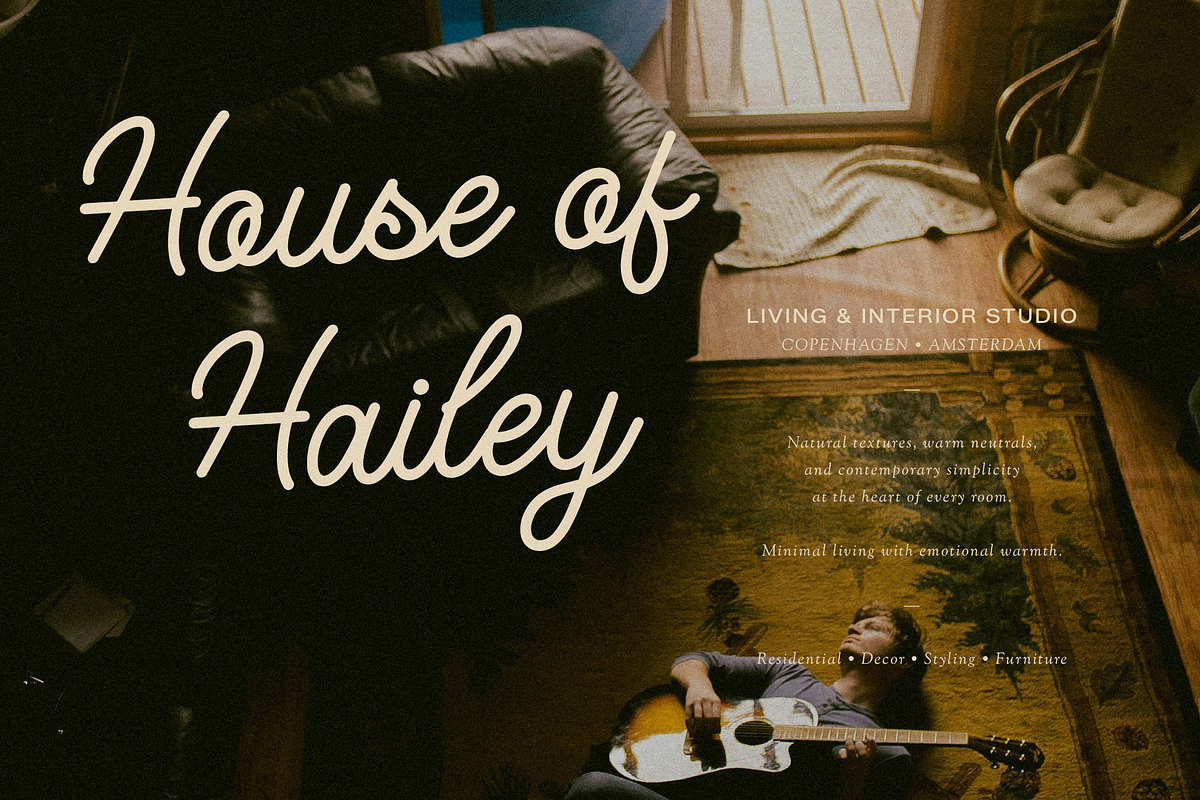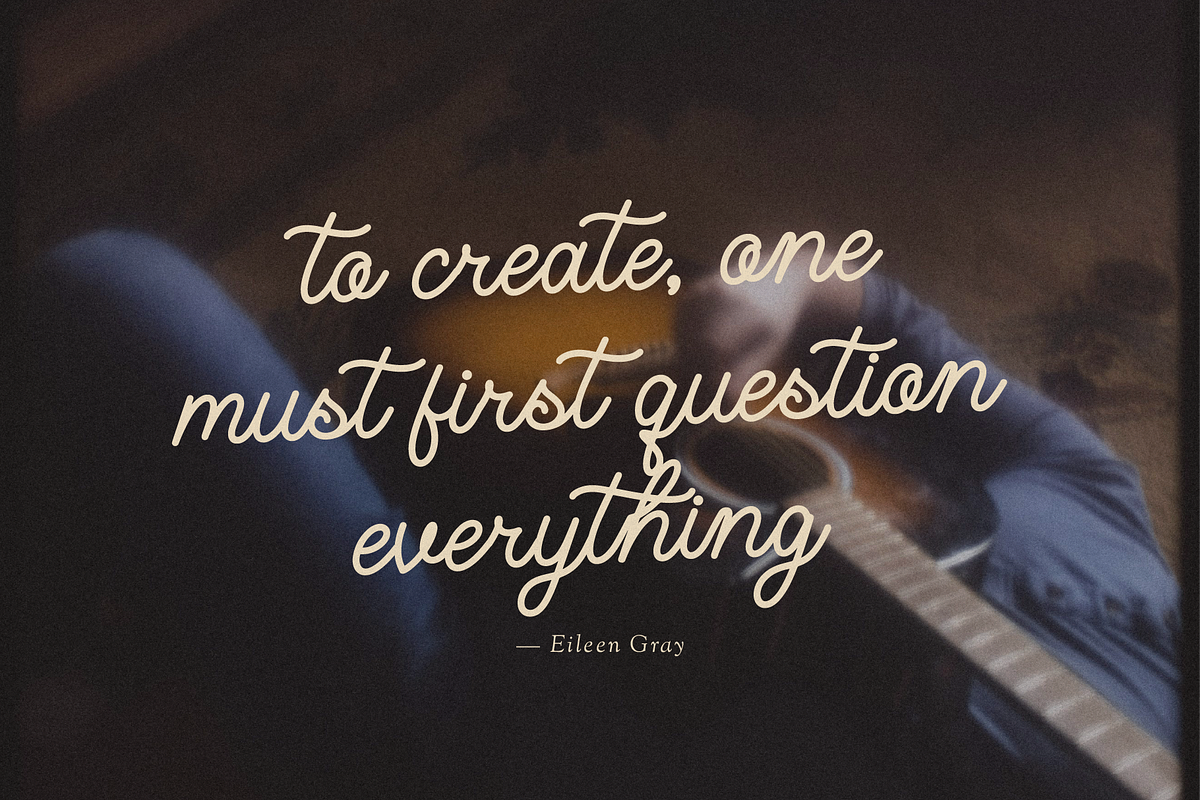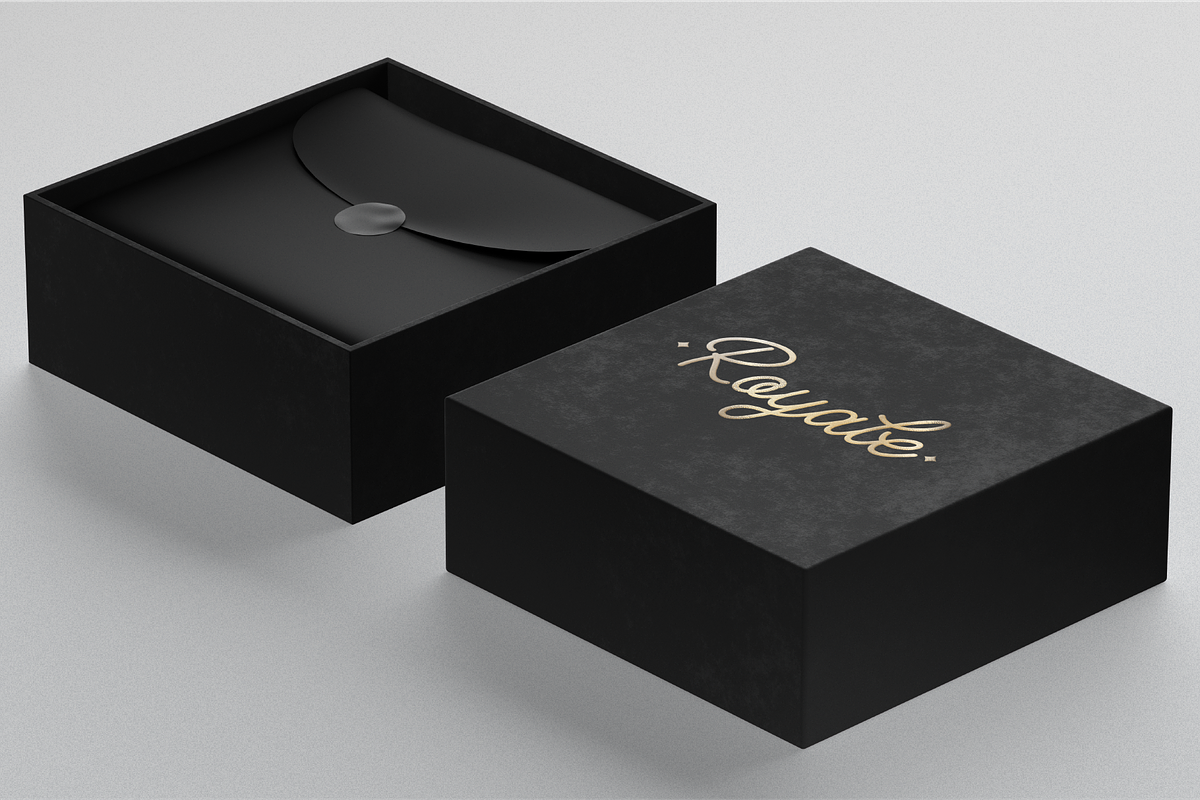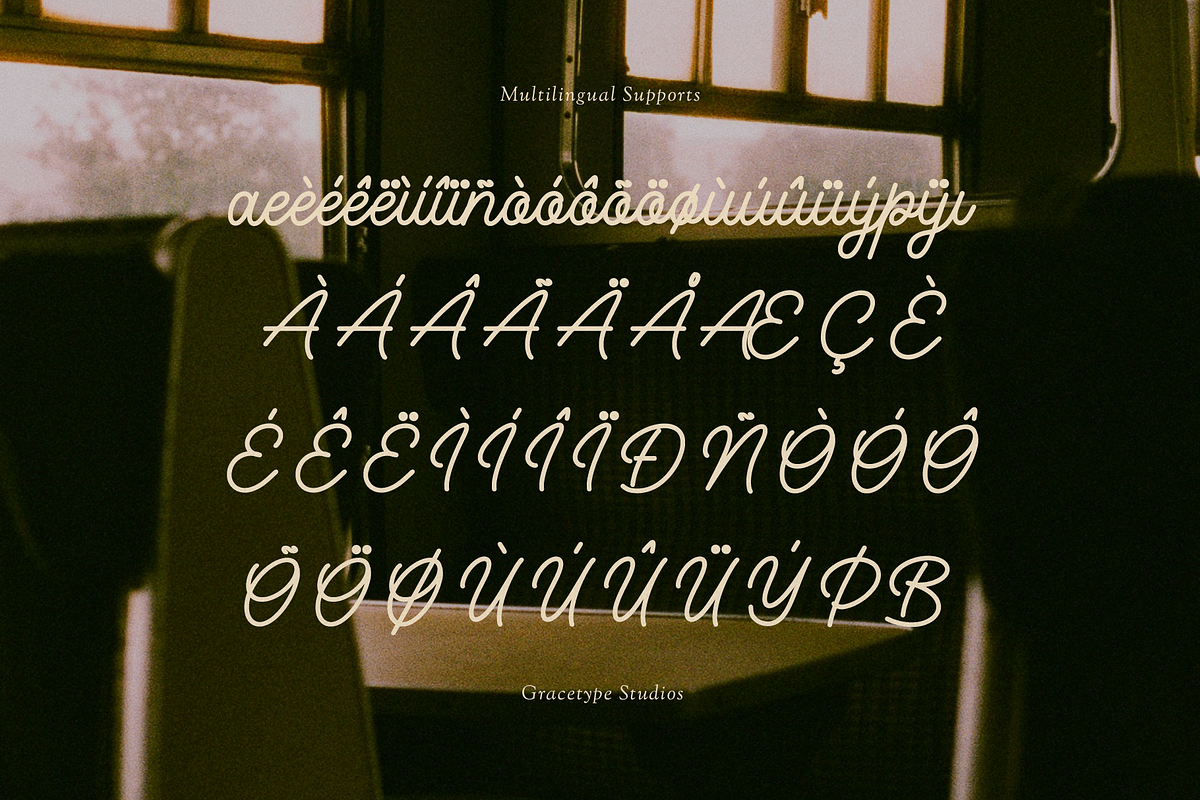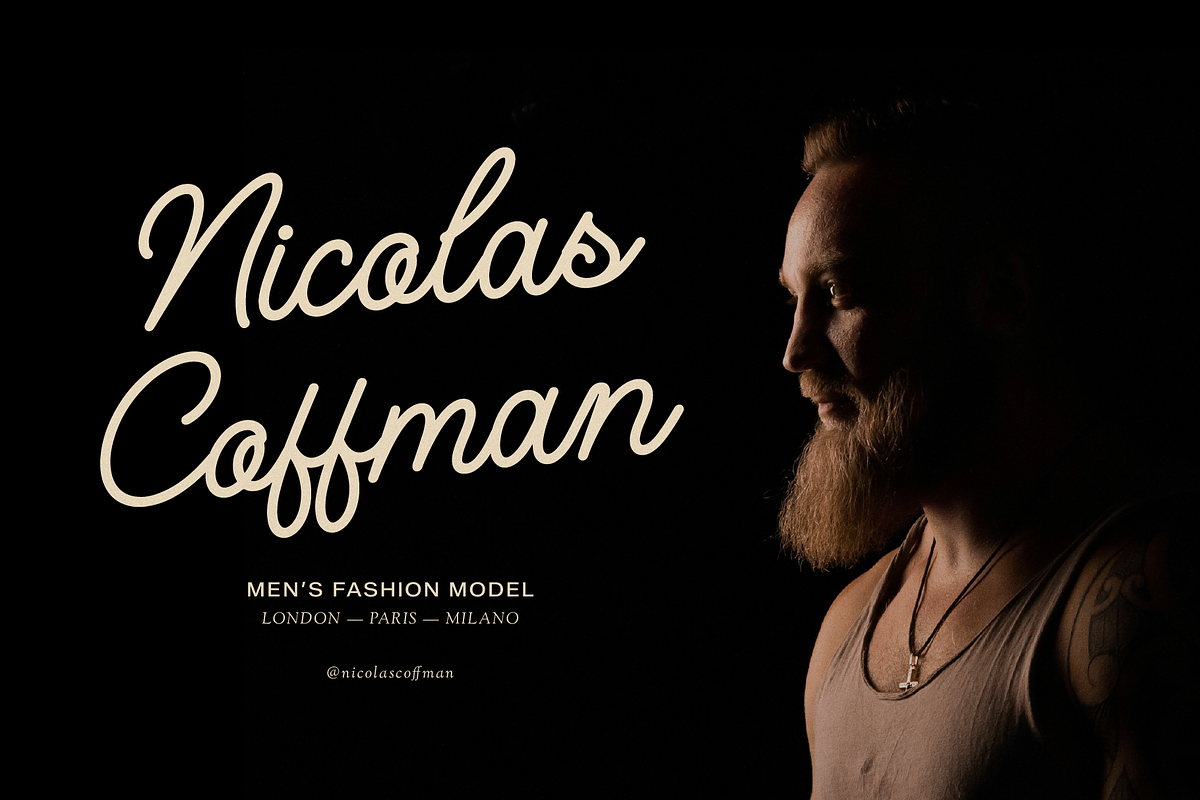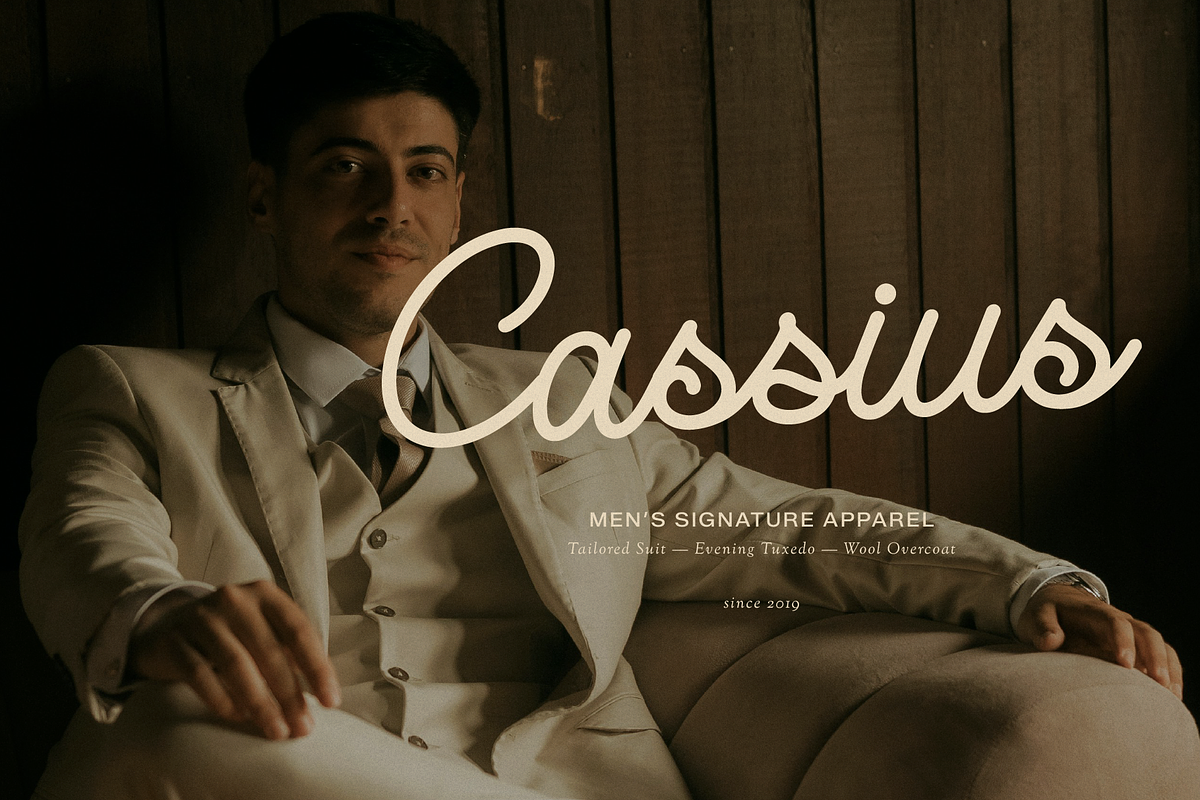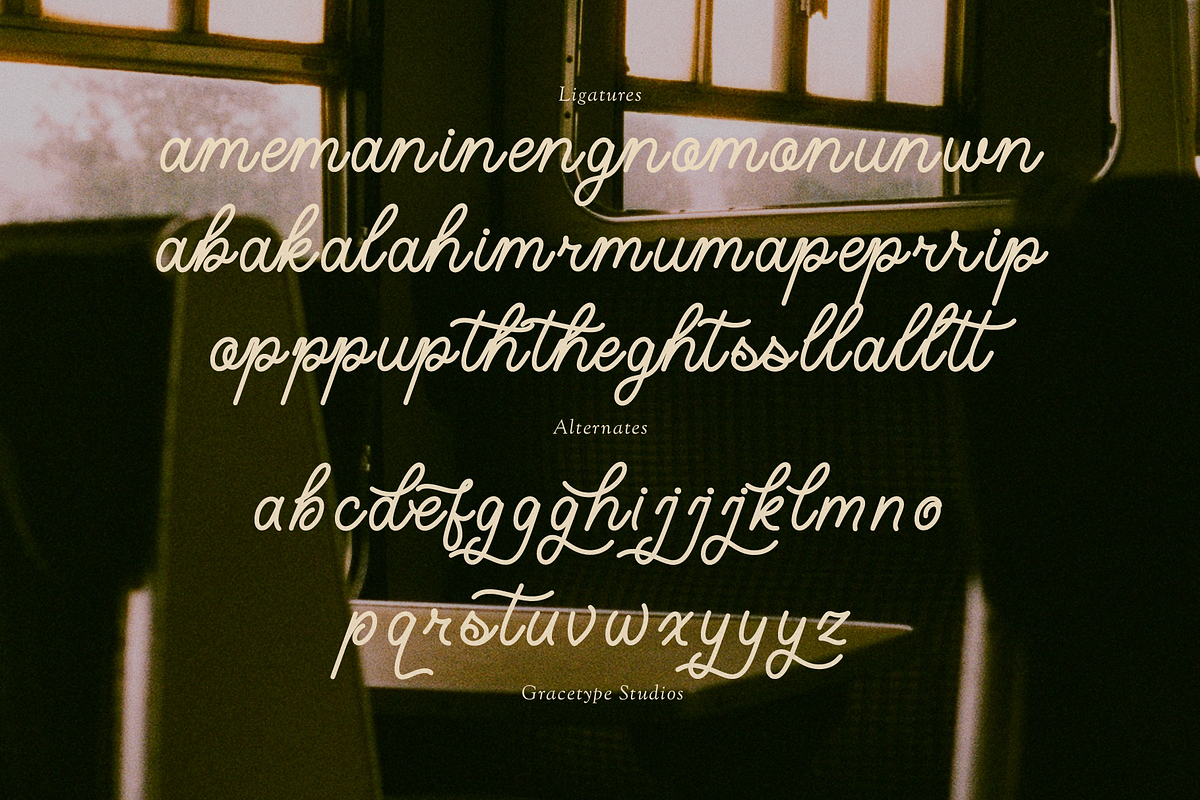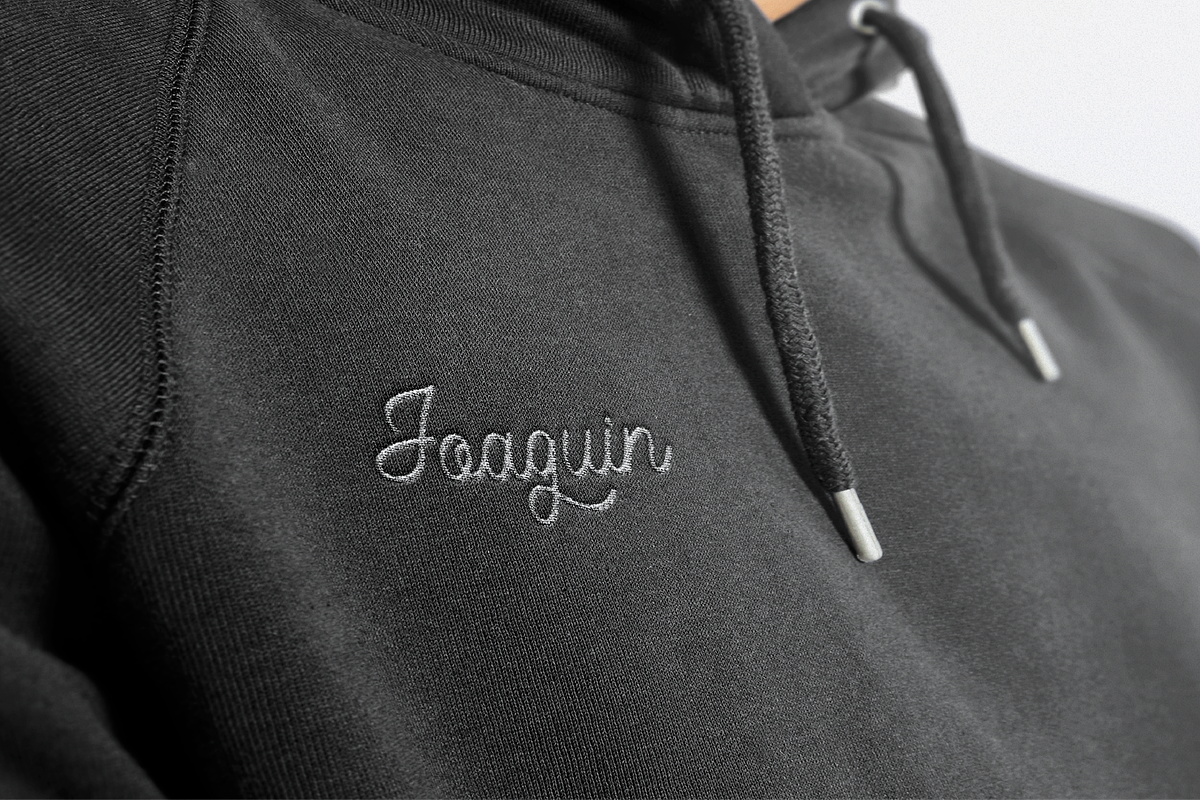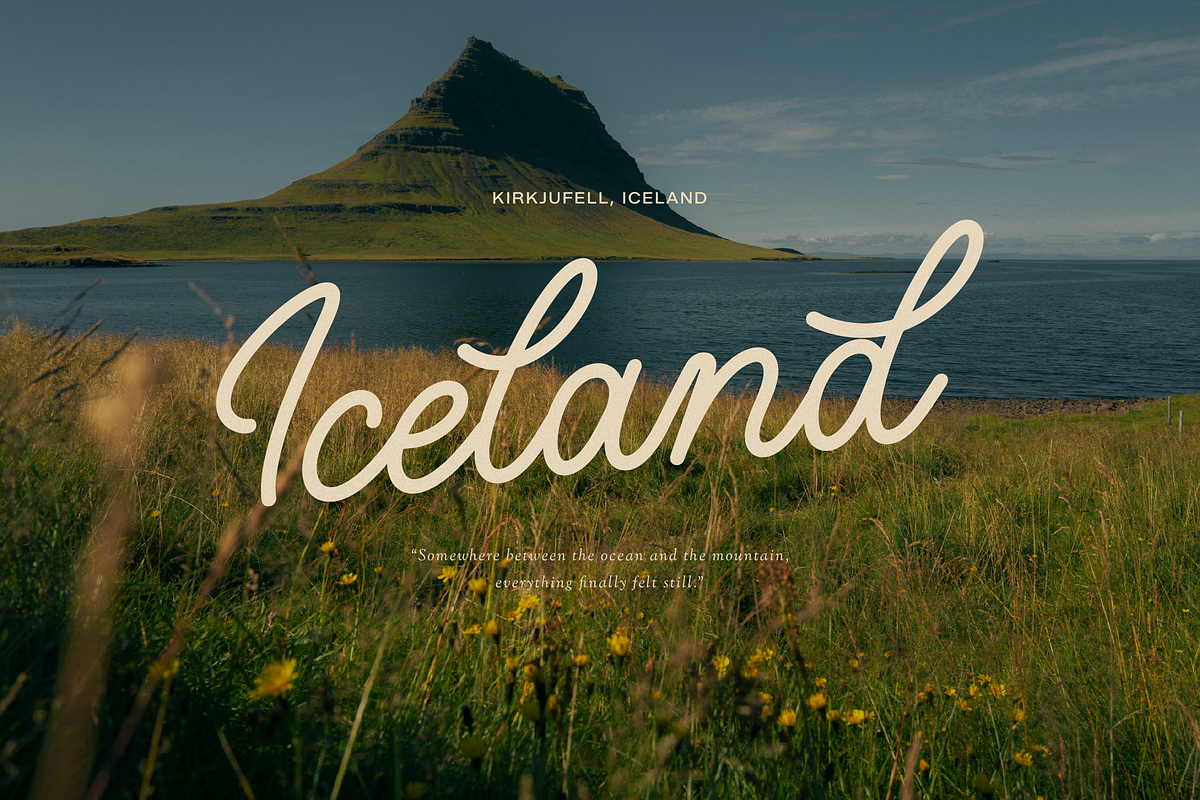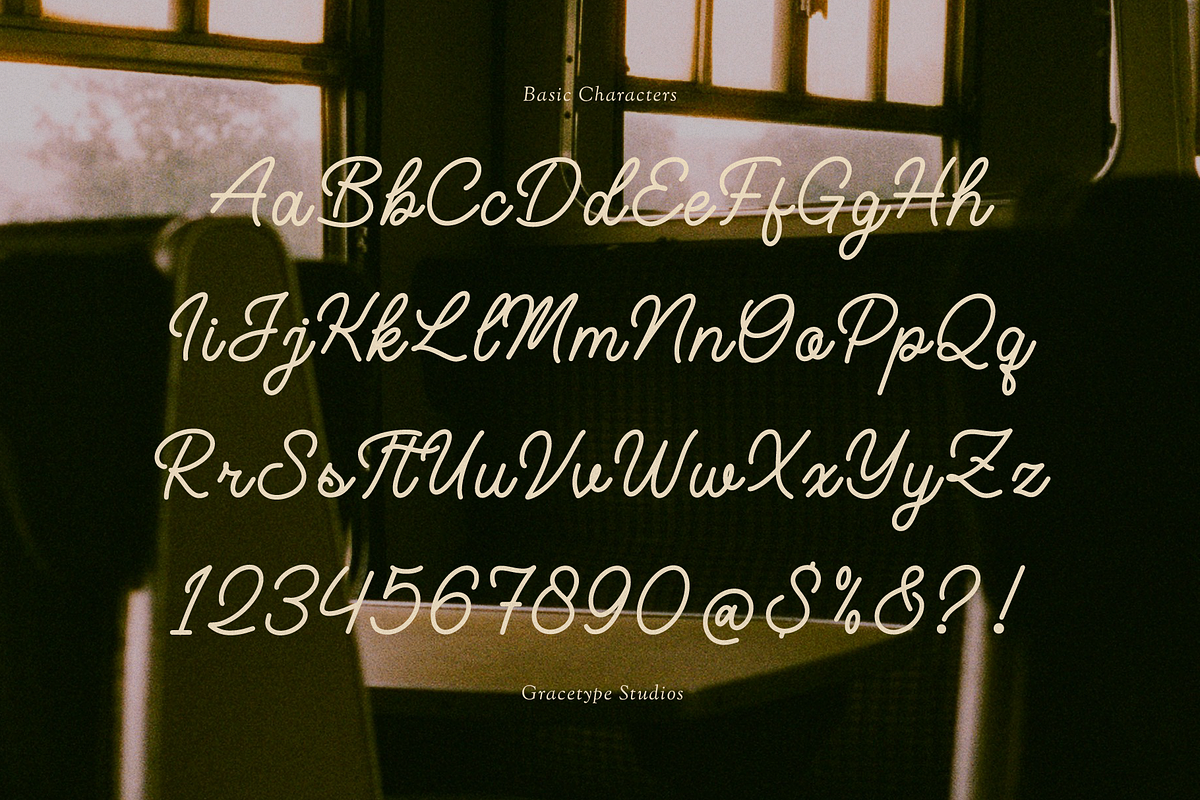
Mastin Calum | Monoline Script Font
Mastin Calum | Monoline Script Font, from Gracetypestudio, suitable for any projects such as: logos, branding projects, homeware designs, product packaging, mugs, quotes, posters, shopping bags, t-shirts, book covers, name card, invitation cards, greeting cards, label, photography, watermark, special events, and all your other lovely projects that need a script taste.
Standard glyphs
Alternate and Ligature
Fonts include multilingual support